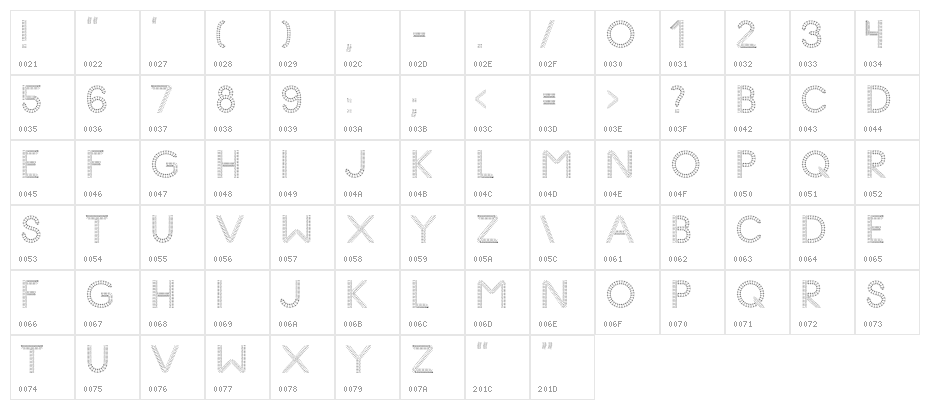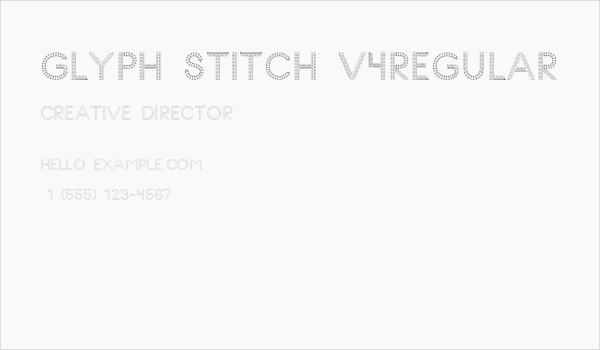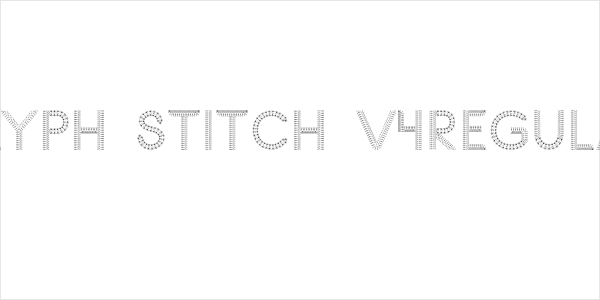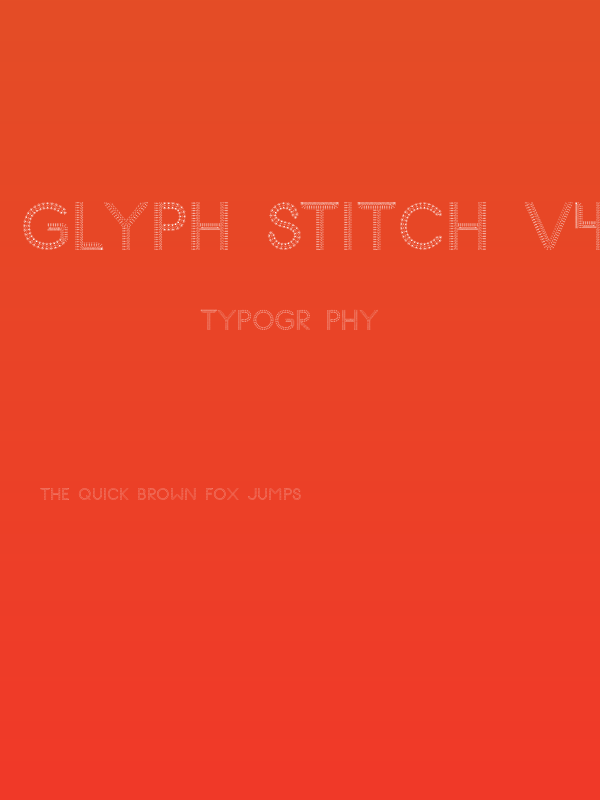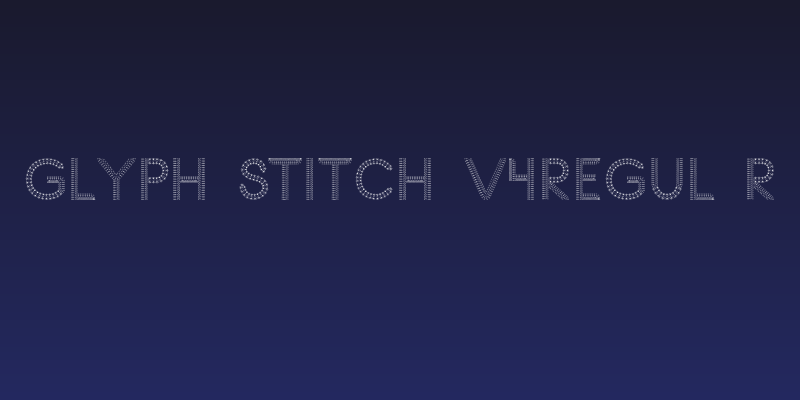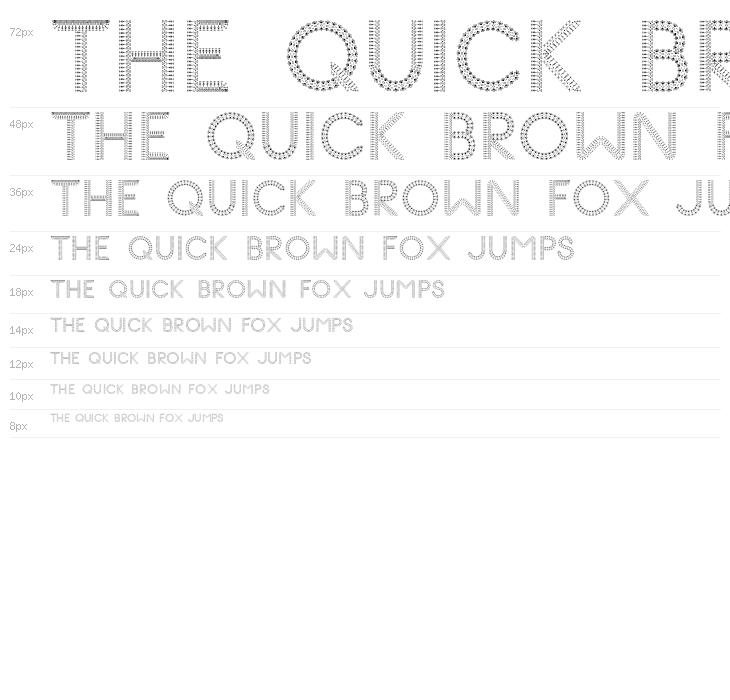
Glyph Stitch v4Regular Font
Glyph Stitch v4Regular Description
This font features a unique design where each character is composed of small, intricate stitch-like patterns, giving it a textured and handcrafted appearance. The uppercase and lowercase letters maintain a consistent style, with each character displaying a uniform stitch pattern that adds depth and visual interest. The numbers and special characters are also designed with the same detailed stitching effect, ensuring a cohesive look across all glyphs. This font stands out with its decorative and artistic flair, making it ideal for projects that require a touch of creativity and uniqueness.
| Use Case | Logos, Posters, Creative projects |
| Proposed Projects | Ideal for craft-themed projects, personalized invitations, creative branding, and artistic posters. |